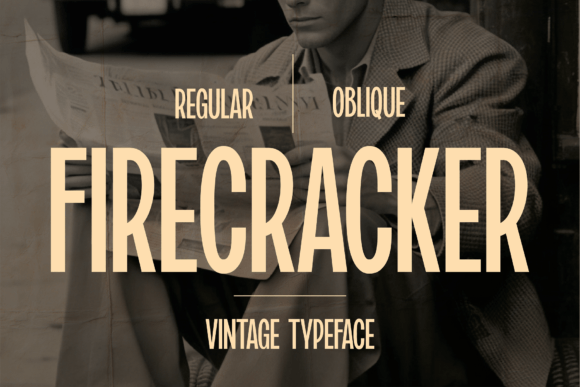
Get ready to travel back in time to the 1950s and 1960s with Firecracker Font! This retro-inspired font from HipFonts is a true blast from the past, bringing the vibrant and exciting energy of that era to your designs.
Firecracker Font boasts beautiful, attention-grabbing letters that are perfect for use in a wide range of applications. Whether you're designing magazines, newspapers, signage, branding, packaging, or anything else, Firecracker will add a touch of nostalgia and timelessness to your work.
Let Firecracker transport your audience back in time with its energetic and enthusiastic letters that will leave a lasting impression on anyone who sees them. Its sans-serif family will give your work a modern yet retro look and feel that is sure to captivate your audience.
If you're looking for a way to make your designs stand out from the crowd and evoke a sense of fun and excitement, look no further than Firecracker Font. Its unique style and charm will have your audience hooked and coming back for more.